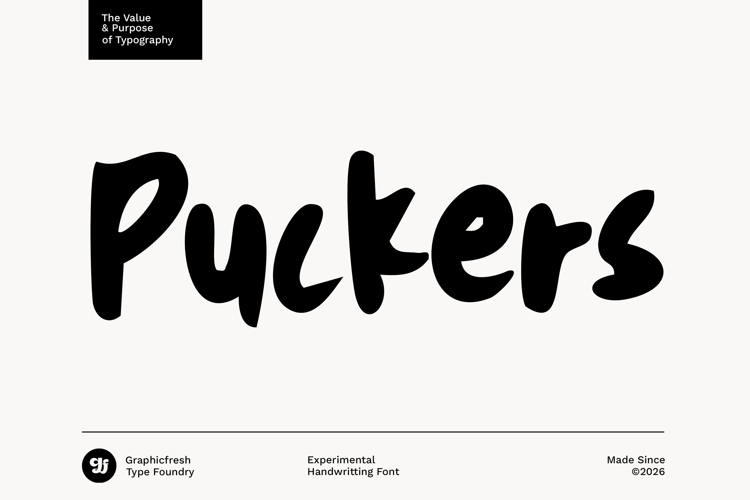
Puckers - Experimental Handwritten Font
Puckers is an experimental handwriting font designed to bring raw expression, playful energy, and modern character into your creative projects. Inspired by spontaneous strokes and imperfect letterforms, Puckers feels bold, artistic, and alive, perfect for designers who want typography that stands out and feels unique.
Each character in Puckers comes with multiple alternates, allowing you to create dynamic, non-repetitive text that looks truly hand-drawn. By switching alternates, your lettering feels more natural, organic, and expressive. Ideal for branding, posters, album covers, packaging, social media graphics, and creative headlines.